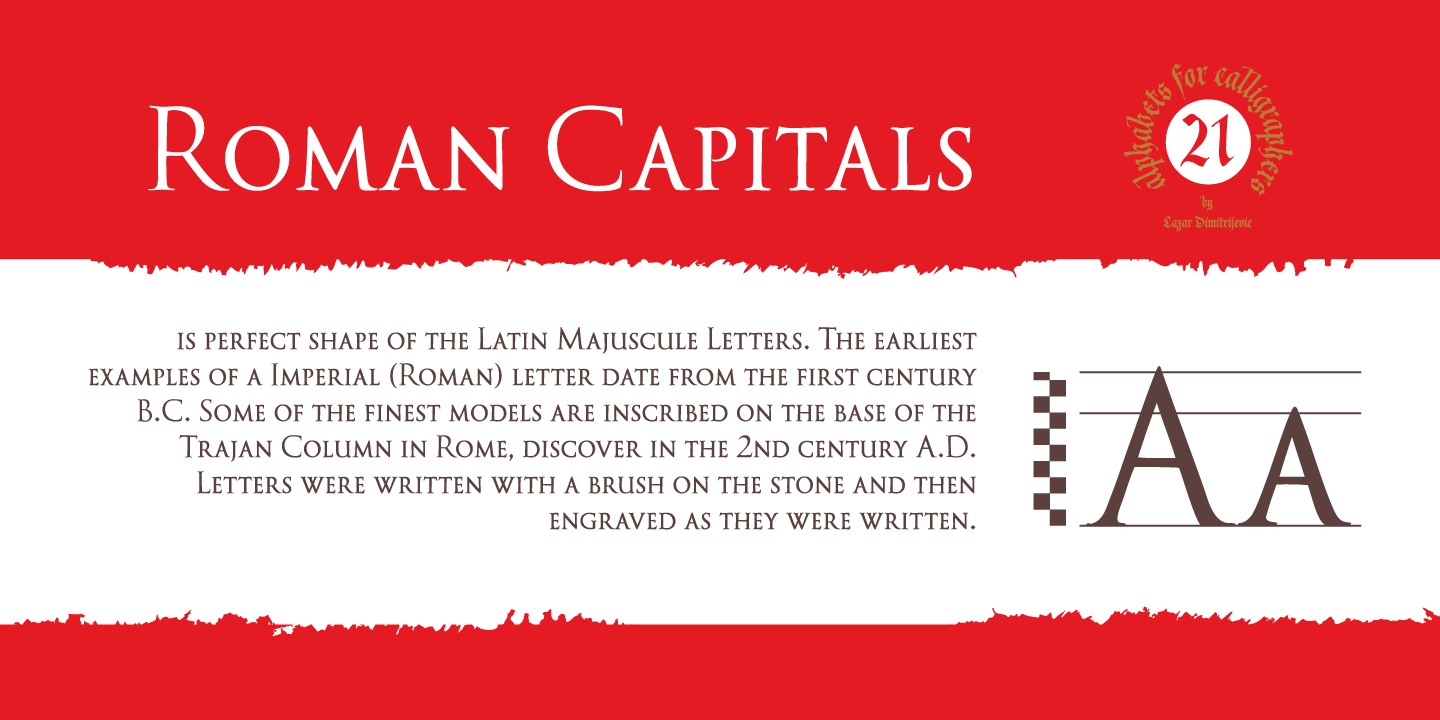
If you're looking for a classic, elegant typeface inspired by ancient Roman inscriptions, Cal Roman Capitals Font Free Download is the perfect choice for your creative projects. This sophisticated font features beautifully crafted uppercase letterforms with timeless proportions, making it ideal for logos, branding, book covers, certificates, signage, architectural designs, and projects that require a sense of history, authority, and tradition.
Cal Roman Capitals Font offers excellent readability while preserving its classical charm and formal elegance. It includes multilingual support and a range of glyphs, giving designers flexibility to create refined and impactful typography. Whether you're designing for a cultural institution, a luxury brand, or a historical publication, this font adds gravitas and timeless beauty to your work.